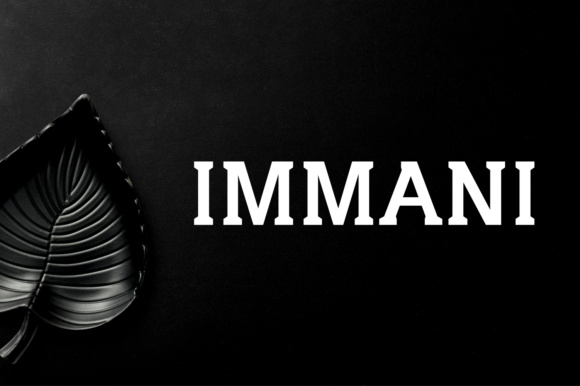
Unleash the Timeless Elegance and Modern Sophistication of Immani Serif 2 Family Pack – Where Serif Fonts Ignite Creativity
In a world of mundane and repetitive typefaces, Immani Serif 2 Family Pack emerges as a beacon of originality and sophistication, ready to transform your creative projects into masterpieces. This captivating font family, brought to life by the innovative minds at Creative Tacos, is a testament to the enduring allure of serif fonts, reimagined for the modern era.
Elevate Your Logos to New Heights:
With Immani Serif 2, your logos will transcend the ordinary and command attention with their timeless appeal. Picture your brand adorned with the graceful curves and delicate serifs of Immani, leaving an unforgettable impression on your audience.
Captivating Titles that Demand Attention:
Craft titles that leap off the page and demand attention. Whether it's for your website, social media posts, or marketing materials, Immani Serif 2 will add a touch of elegance and sophistication that sets your words apart from the digital noise.
Web Layouts that Inspire and Engage:
Elevate your web layouts with the understated beauty of Immani Serif 2. Its clean lines and harmonious proportions create a visually engaging experience that draws visitors in and keeps them captivated.
Branding that Resonates with Your Audience:
Create a brand identity that exudes professionalism, trust, and a timeless appeal with Immani Serif 2. Its classic charm will resonate with your audience, building a strong connection that transcends fleeting trends.
Discover the Versatility of Immani Serif 2:
From bold headlines that grab attention to elegant body text that flows effortlessly, Immani Serif 2 adapts seamlessly to a wide range of design applications. Whether you're crafting logos, titles, web layouts, or branding materials, this font family delivers exceptional results every time.
Unleash Your Creative Genius:
Unleash your creative genius with Immani Serif 2 and watch your projects come to life with a touch of timeless elegance. Its modern serif style is designed to inspire, allowing you to create designs that stand the test of time.